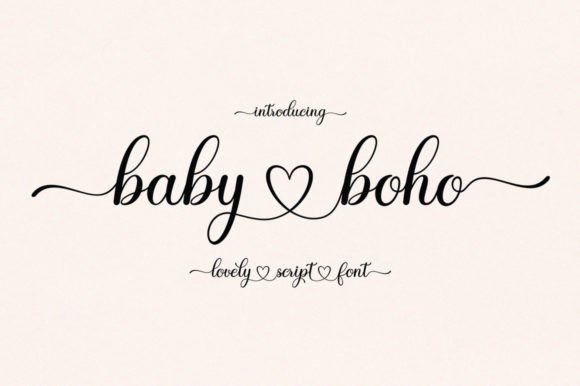
Looking for the perfect font to make your posters and headings stand out? Look no further than Baby Boho, the best font for poster headings on the market today!
Created by the talented designers at bosstypestudio, Baby Boho is a beautiful and sweet handwritten script font that is sure to capture your heart. With its soft, flowing lines and delicate curves, this font is perfect for adding a touch of romance and whimsy to all of your design projects.
Whether you're creating wedding invitations, greeting cards, or social media graphics, Baby Boho is the perfect choice. Its versatile script style is easy to read and can be used for a wide variety of purposes, from elegant logos to playful headlines.
One of the best things about Baby Boho is its flexibility. Whether you're looking for a font that is bold and eye-catching or one that is more subdued and elegant, this font has you covered. Its gentle curves and soft lines make it the perfect choice for any project that requires a touch of sweetness and charm.